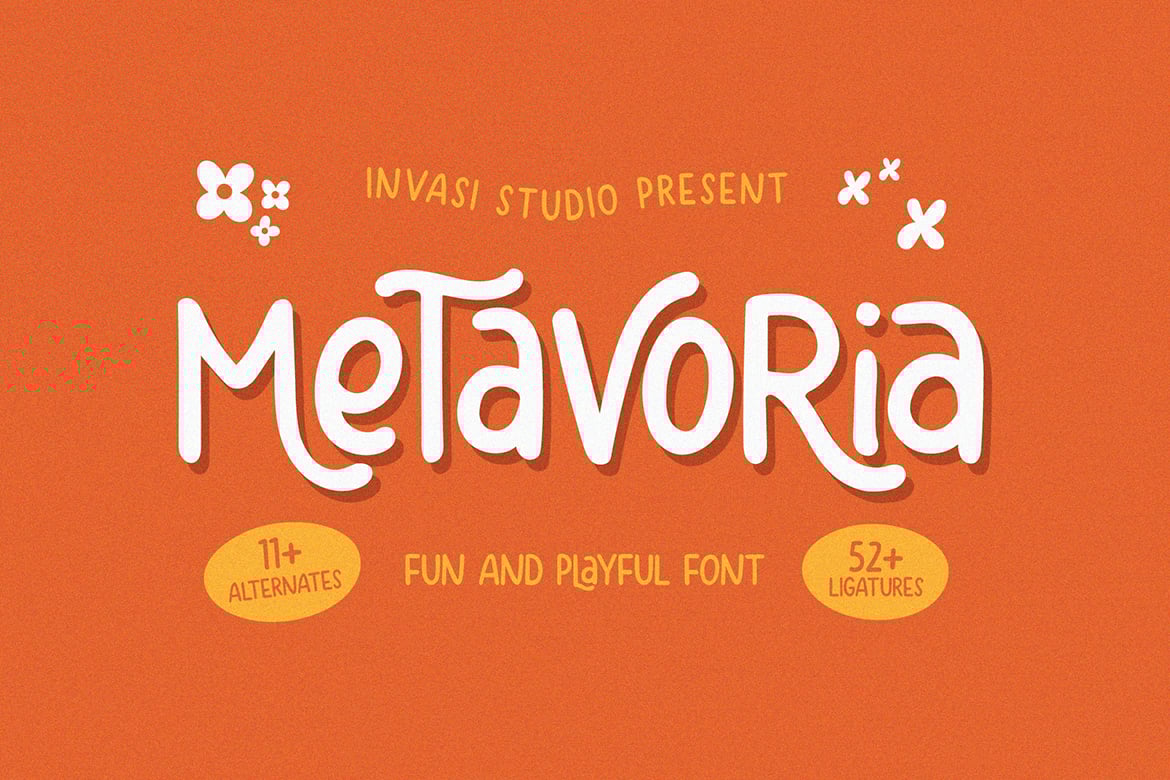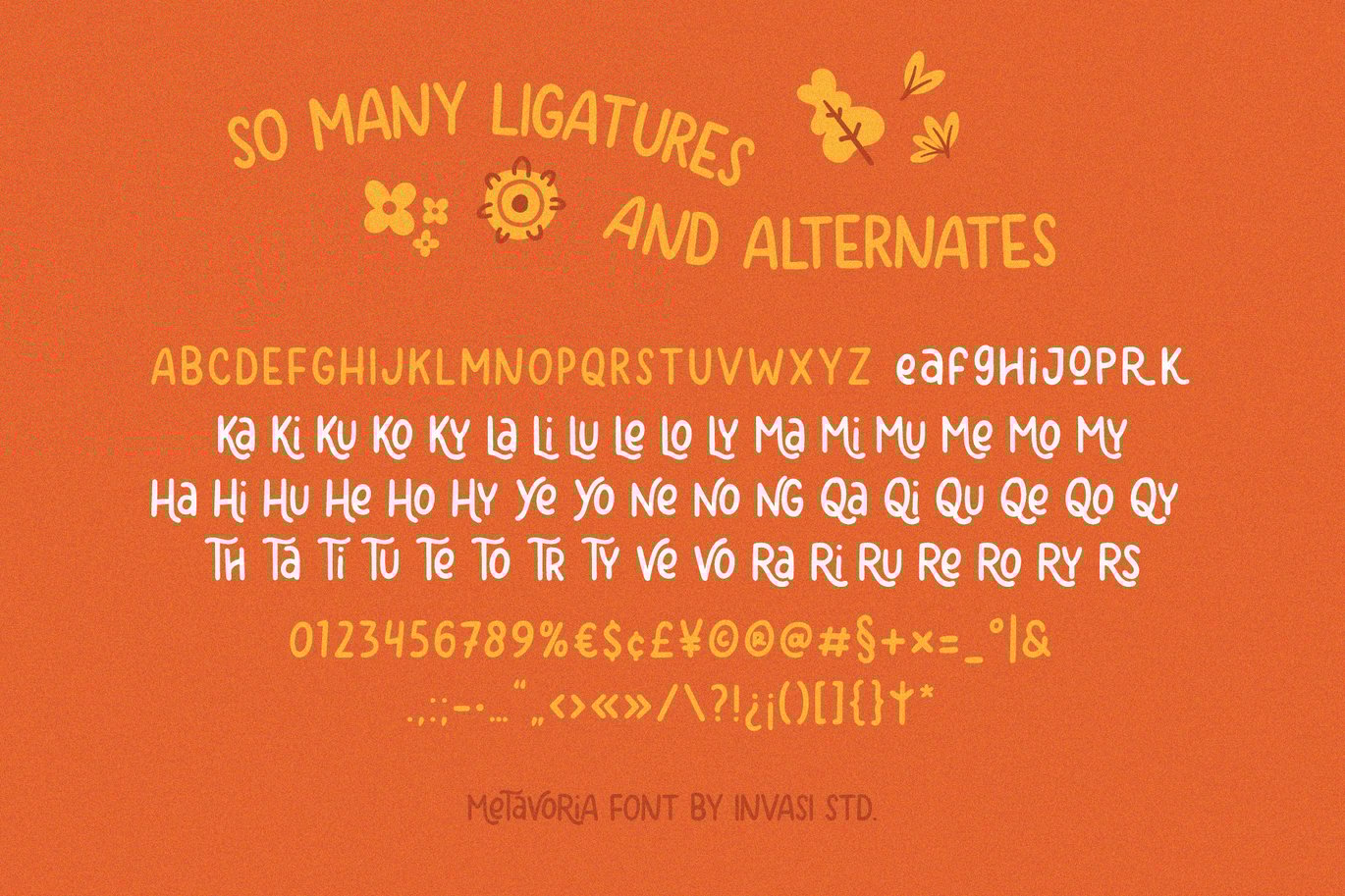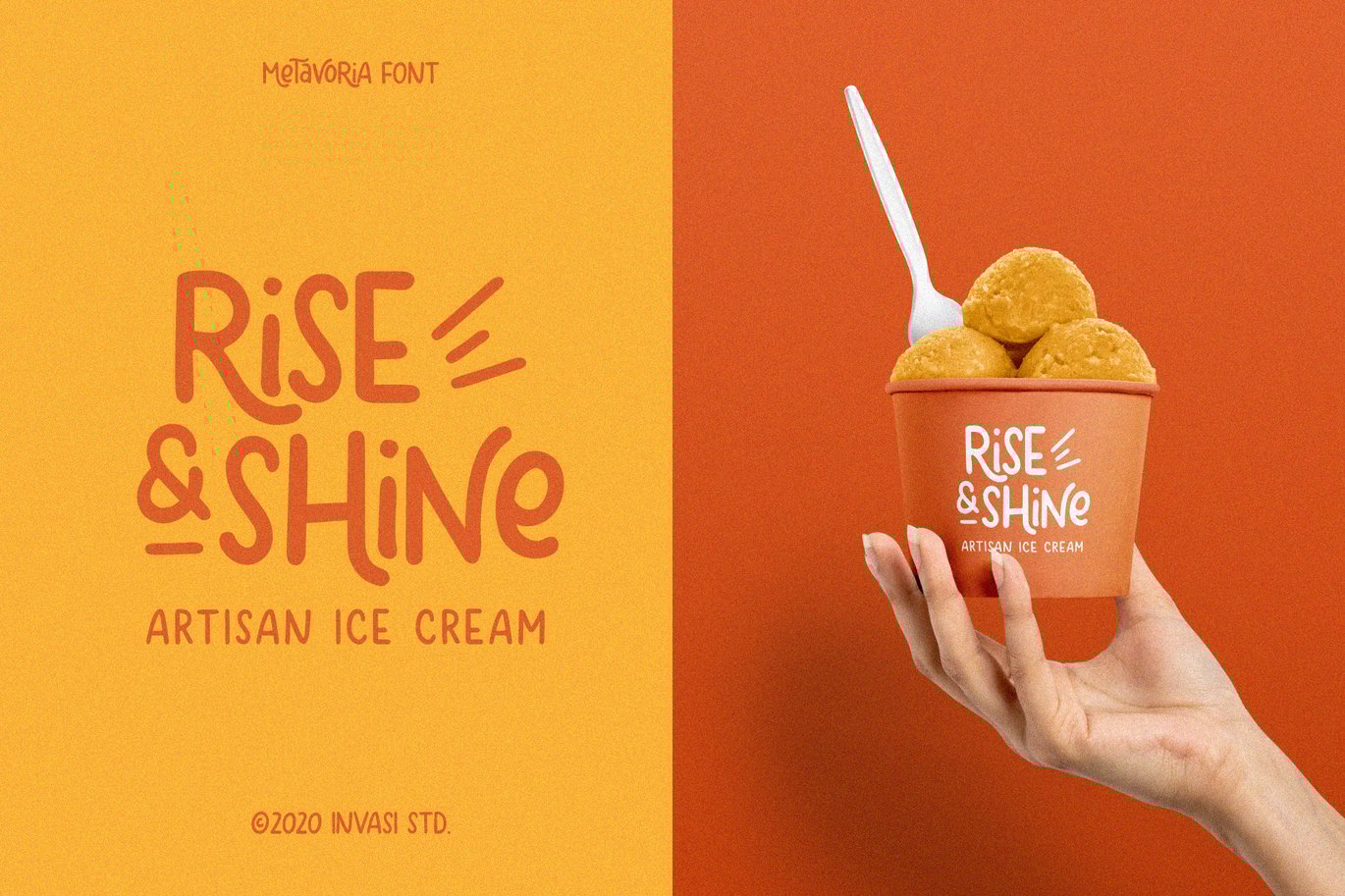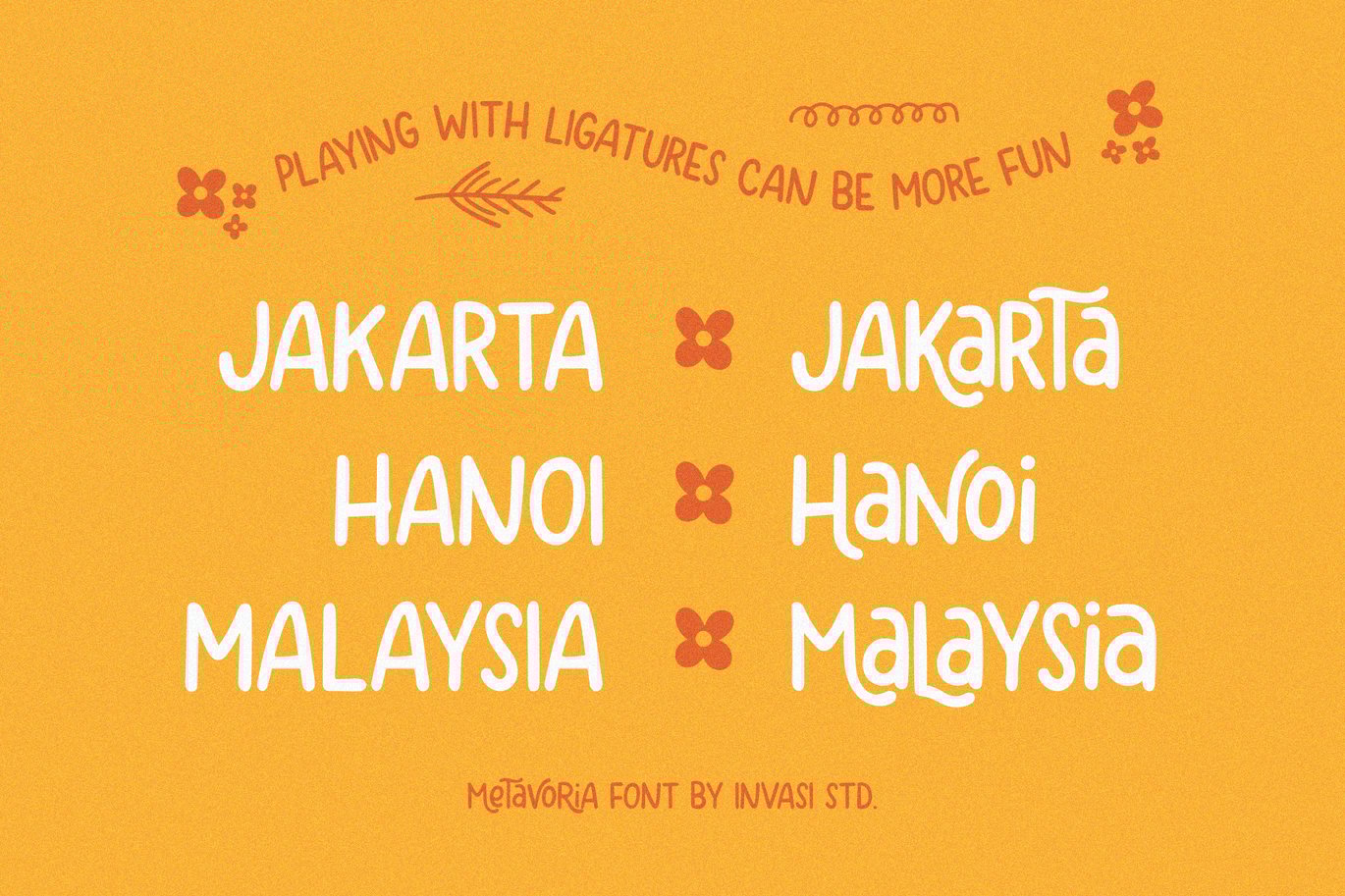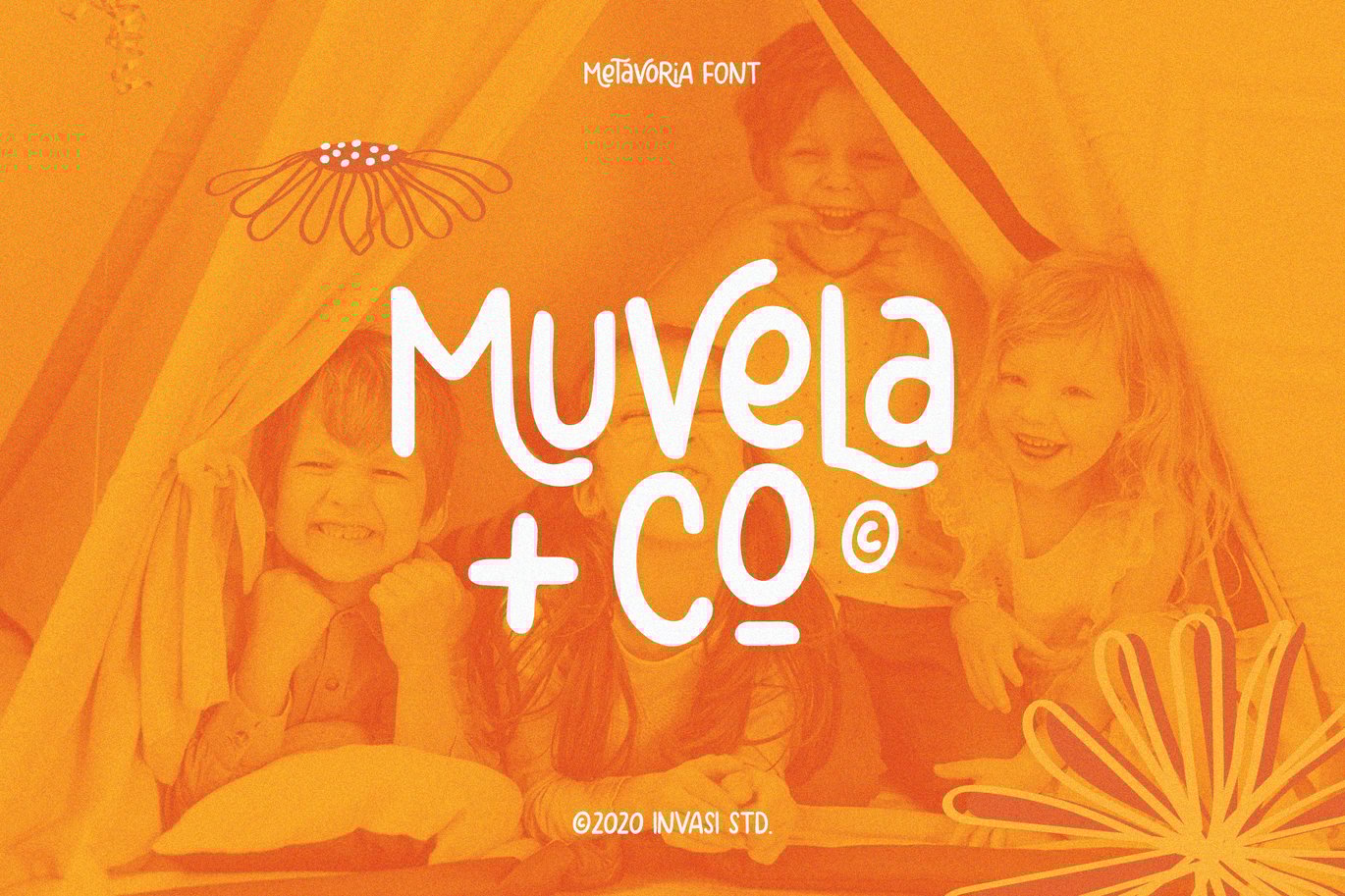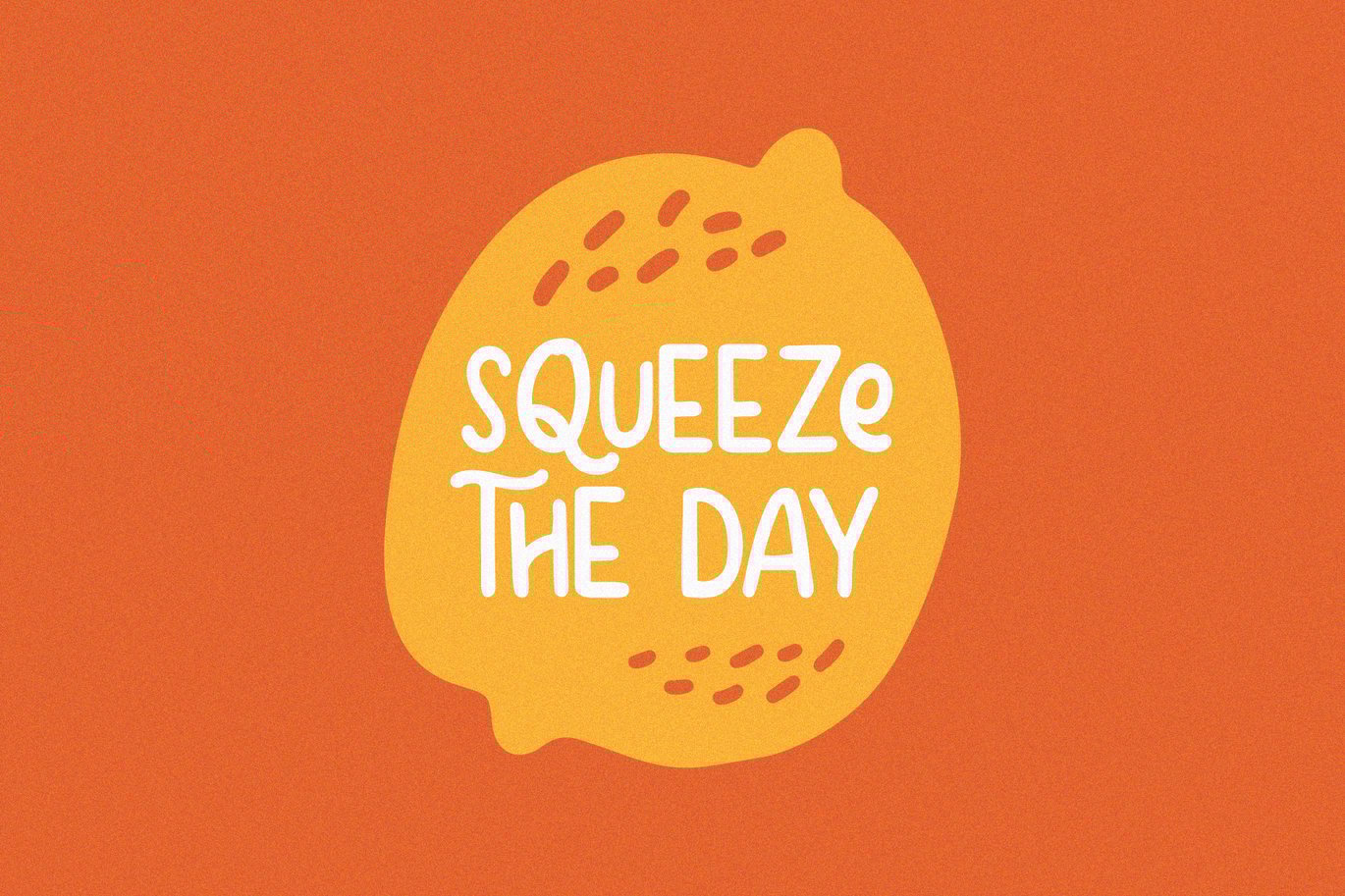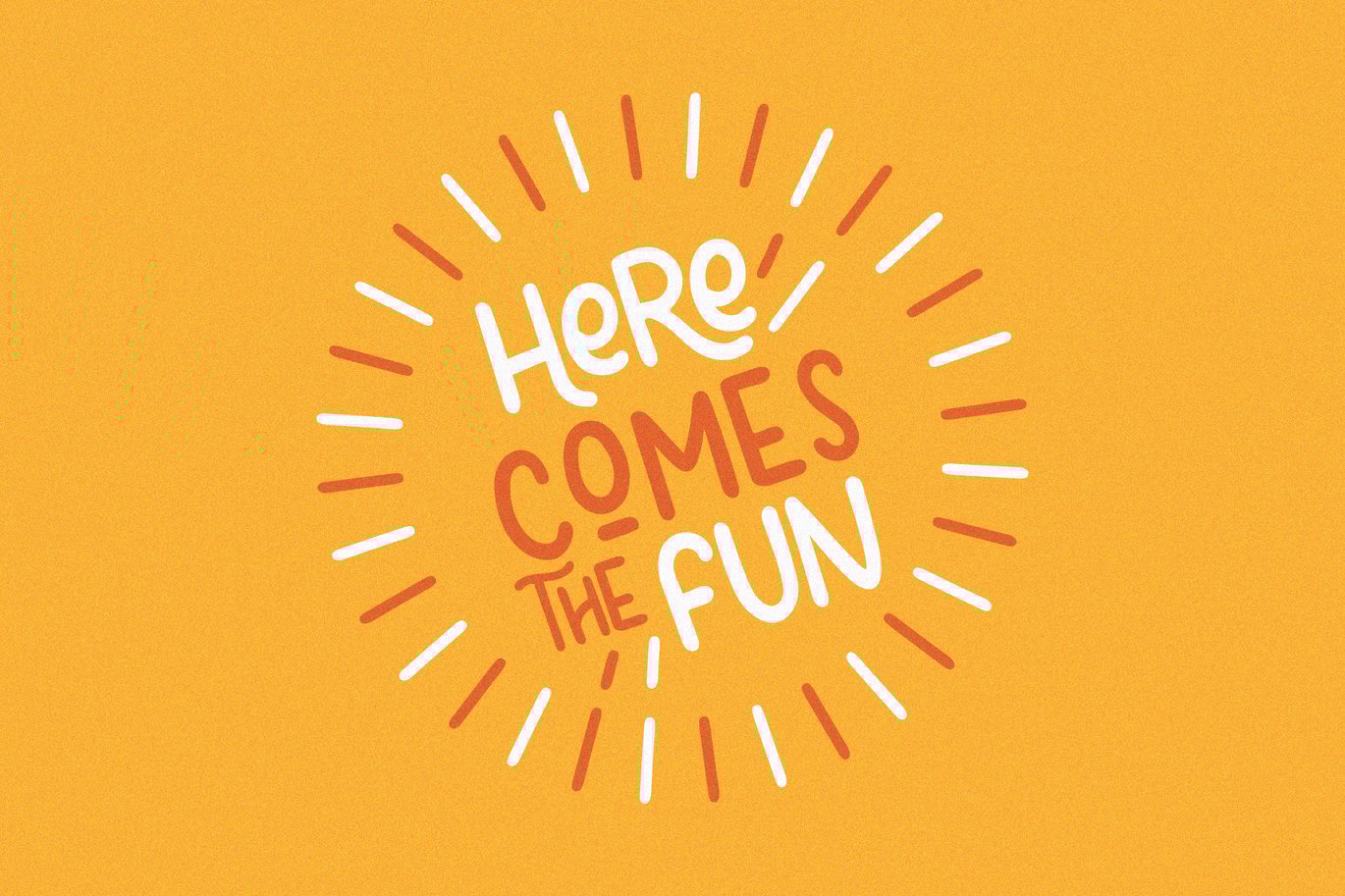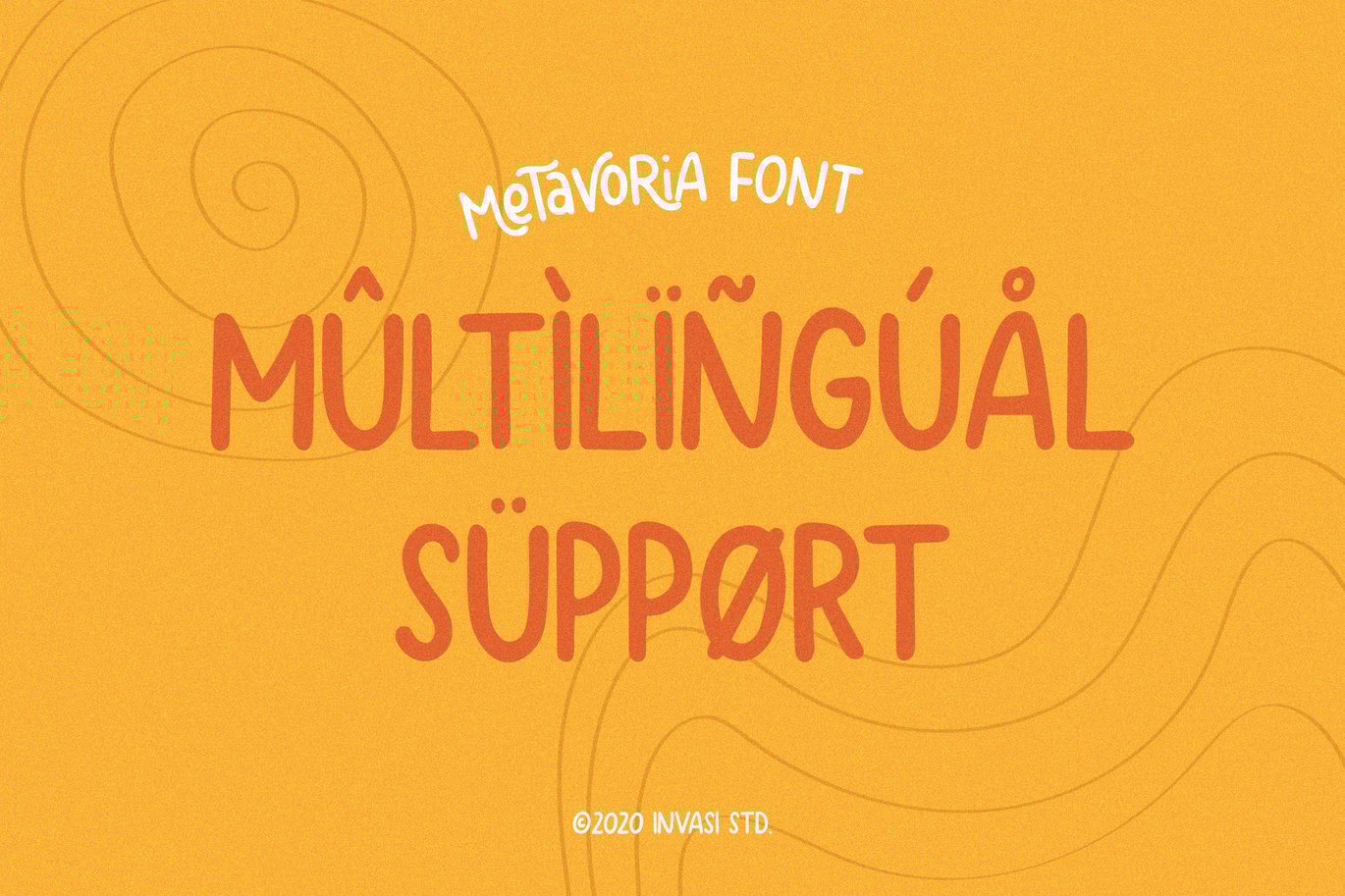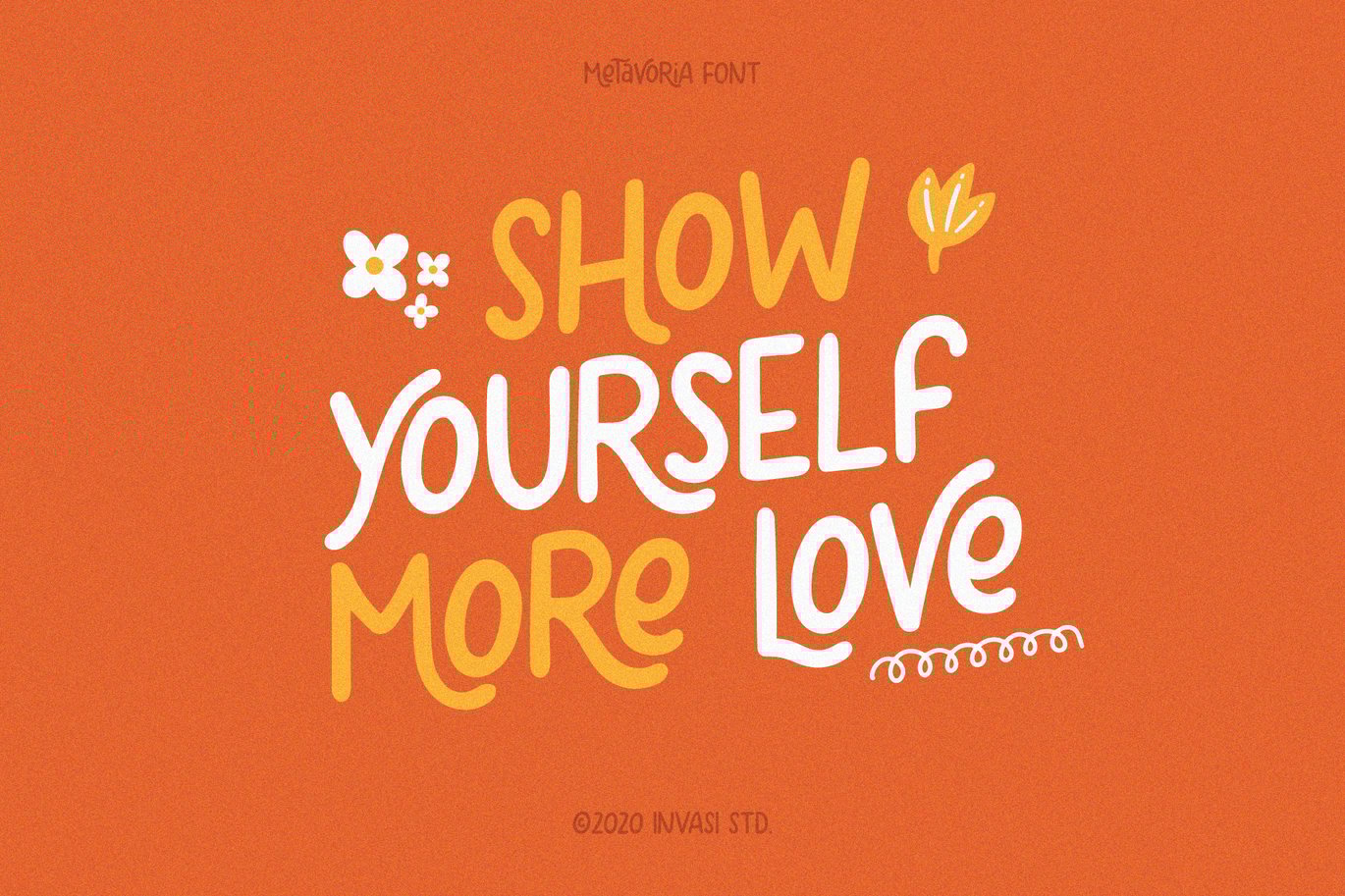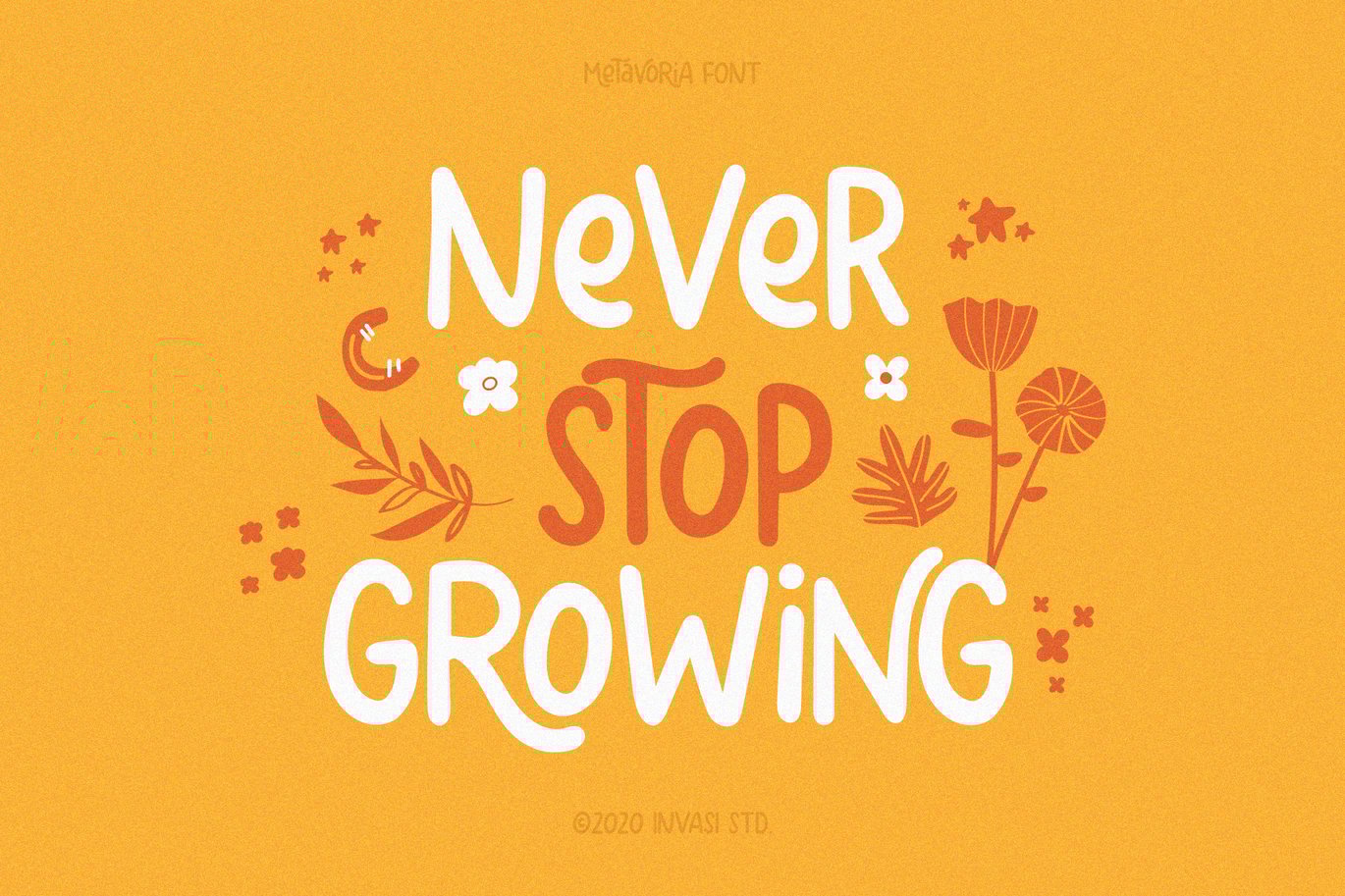
Metavoria – Playful Font
Introducing Metavoria Font, a playful and quirky display typeface with a hand-drawn style. This font comes with so many ligatures and alternates, that you can use that for more fun on your projects.
Metavoria font is ideal for branding projects or packaging that need a quirky and playful feel.
- Multilanguage